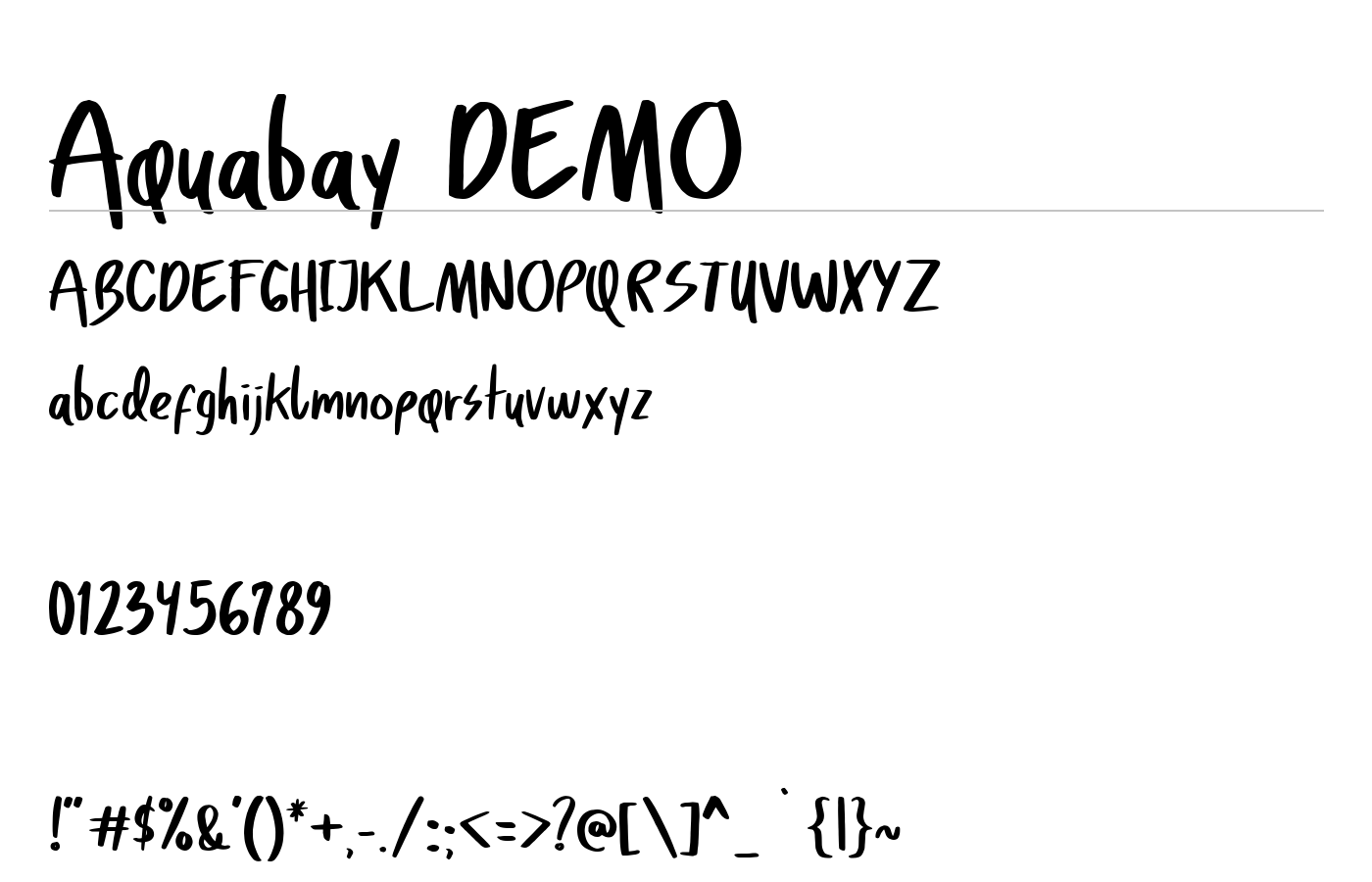
Aquabay DEMO is a playful and casual handwritten sans serif font with a warm, approachable character. It features a lively, slightly irregular stroke and a medium x-height, making it perfect for informal and friendly designs that seek a personal touch. This font works well for branding, greeting cards, social media graphics, and any creative project that benefits from an energetic, hand-crafted feel.
Aquabay DEMO Font
About Aquabay DEMO Font